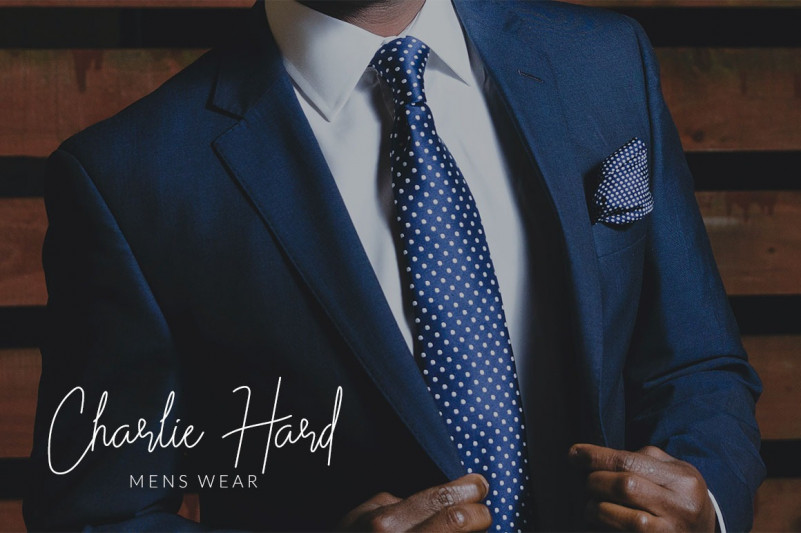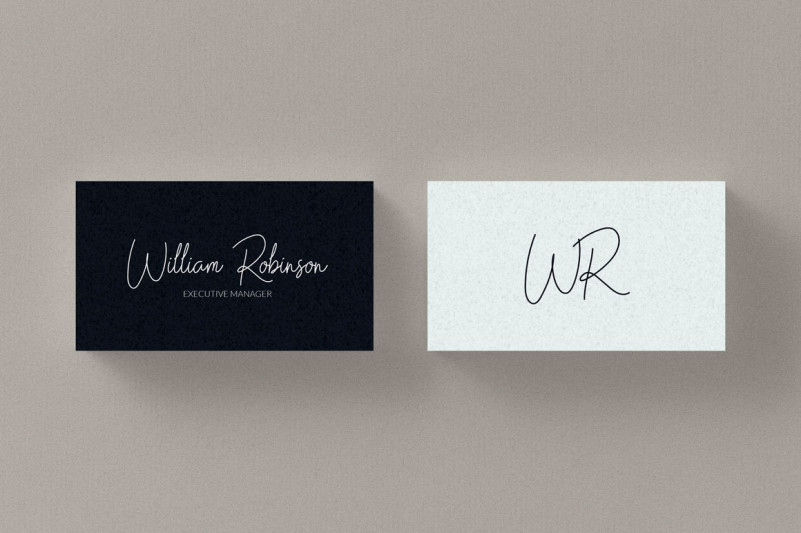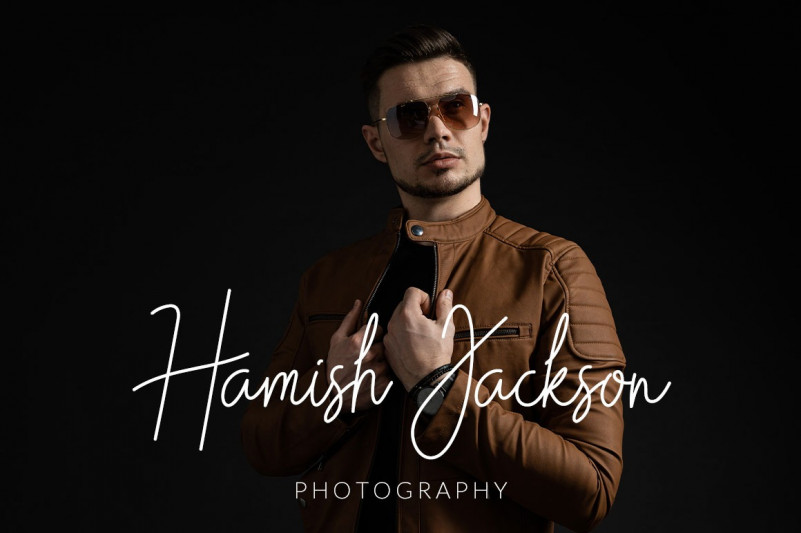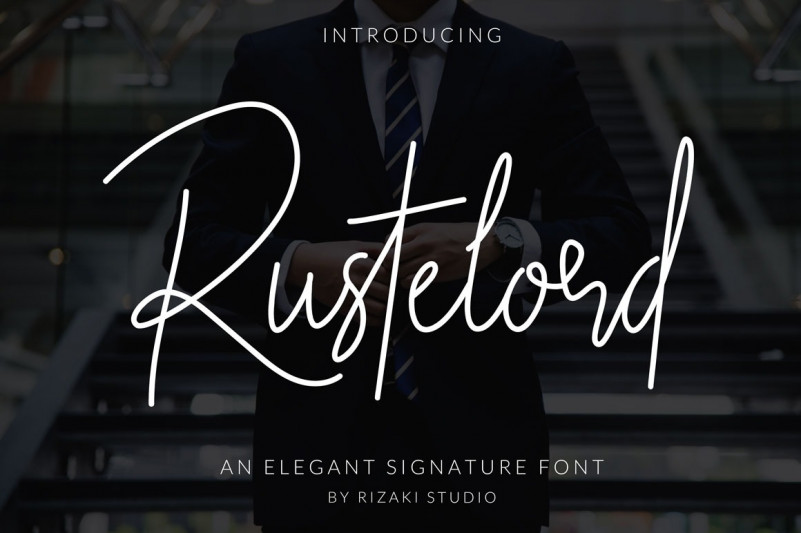
Rustelord Signature Script Font
This font is a signature style script writing with a natural and modern flow. This typeface was created and designed to look as close to natural writing as possible for a signature logo.
This font is perfect for branding, signatures, wedding invitations, logos, promotions, product packaging, social media design, advertising, photography, watermarks and other needs.